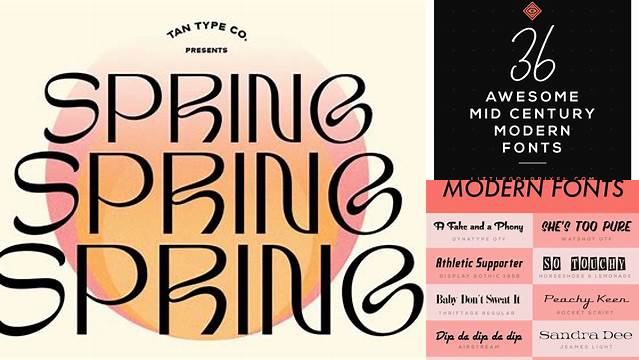
Free Mid-Century Script Fonts: Stylish Retro Options
Are you guys on the hunt for a font that screams retro charm and timeless elegance? Look no further! Mid-century script fonts are your perfect go-to, offering a touch of vintage flair that can elevate any design project. In this article, we're diving deep into the world of these stylish fonts, exploring what makes them so special, where you can find them for free, and how to use them effectively in your creative endeavors. So, buckle up and let's get started!
What Makes Mid-Century Script Fonts So Special?
Mid-century script fonts possess a unique aesthetic that harks back to the 1950s and 1960s, a time known for its optimism, innovation, and distinctive design styles. These fonts often feature flowing, cursive letterforms with a handcrafted feel, reminiscent of vintage advertisements, signage, and branding materials. The beauty of these fonts lies in their ability to evoke nostalgia while maintaining a modern appeal, making them incredibly versatile for a wide range of applications. Think about the iconic logos and branding from this era – the swooping lines and elegant curves of script fonts played a significant role in their visual identity. This era celebrated a blend of futuristic aspirations and a handcrafted touch, which is perfectly captured in these scripts. The letterforms often have a rhythmic quality, creating a sense of movement and energy that draws the eye. Additionally, many mid-century script fonts incorporate subtle imperfections and variations in stroke weight, adding to their authenticity and charm. This human element is what sets them apart from more sterile, digital-feeling typefaces. They bring a warmth and personality that can instantly transform a design from ordinary to extraordinary. Whether you’re designing a logo, creating a poster, or working on a website, the right mid-century script font can add that crucial touch of vintage sophistication. They are perfect for projects that aim to evoke a sense of nostalgia, luxury, or handcrafted quality. The flowing, elegant lines create a visual rhythm that is both pleasing and engaging, making them a popular choice for designers seeking to add a touch of timeless style to their work. The distinctiveness of these fonts also ensures that your designs will stand out, capturing attention and leaving a lasting impression. By understanding the history and characteristics of mid-century script fonts, you can appreciate their unique appeal and use them effectively to create visually stunning designs.
How to Use Mid-Century Script Fonts Effectively
Now that you've snagged some awesome mid-century script fonts, let's talk about how to use them like a pro! These fonts are undeniably stylish, but they need to be wielded with care to truly shine. One of the most important things to consider is the context of your project. Mid-century scripts work wonders for vintage-themed designs, branding, posters, invitations, and even websites aiming for a retro feel. Think about the overall message you want to convey. These fonts often evoke feelings of nostalgia, elegance, and handcrafted quality, so they're perfect for projects that align with these themes. However, they might not be the best choice for something ultra-modern or minimalist. When it comes to typography, less is often more. Mid-century script fonts are typically best used sparingly, as headlines, logos, or short phrases. Overusing them can make your design look cluttered and overwhelming. Pair them with a clean, simple sans-serif or serif font for body text to create a balanced and visually appealing layout. This contrast can highlight the script font and make it stand out even more. For example, a bold script font used for a headline paired with a classic sans-serif like Helvetica or Arial for the body text can create a striking and legible design. Consider the size and spacing of your script font. Because of their flowing and decorative nature, script fonts can sometimes be difficult to read at small sizes. Ensure that your chosen font is legible, especially in smaller applications like business cards or website navigation. Adjust the letter spacing (tracking) and line height (leading) to improve readability if needed. Experiment with different weights and styles within the font family. Many mid-century script fonts come in various weights, from light and delicate to bold and impactful. Choosing the right weight can significantly affect the overall look and feel of your design. A lighter weight might be suitable for elegant invitations, while a bolder weight could work well for a retro-inspired poster. Pay attention to the color palette. Mid-century designs often feature warm, muted colors like oranges, browns, and yellows, as well as contrasting colors like teal and mustard. Using a color palette that complements your font choice can enhance the vintage aesthetic. Consider adding subtle textures and graphic elements that evoke the mid-century era, such as geometric patterns, starbursts, or hand-drawn illustrations. These elements can help to reinforce the retro theme and create a cohesive design. By carefully considering these factors, you can effectively incorporate mid-century script fonts into your designs and create visually stunning pieces that capture the essence of this iconic era.
Examples of Stunning Mid-Century Script Fonts
Okay, let's get down to specifics and check out some amazing mid-century script fonts that you can use to spice up your projects. Knowing a few standout examples can really get your creative juices flowing and help you envision how these fonts might work in your own designs. First up, we have Brush Script MT, a classic and widely recognized font that perfectly embodies the mid-century aesthetic. Its bold, flowing strokes and slightly irregular letterforms give it a hand-painted feel, making it ideal for signage, posters, and headlines. This font exudes a sense of energy and informality, perfect for designs that need a touch of retro flair. Another fantastic option is Lobster, a bold and condensed script font with a vintage vibe. Lobster's tightly spaced letters and dramatic curves make it a standout choice for logos, packaging, and display typography. It’s particularly effective when used in shorter phrases or single words, as its distinctive style can make longer passages challenging to read. For a more elegant and refined look, consider Pacifico. This smooth, flowing script font has a relaxed and friendly feel, reminiscent of vintage surf posters and California beach culture. Pacifico is incredibly versatile and works well for a variety of applications, from websites and social media graphics to invitations and branding materials. If you’re looking for something with a bit more character and whimsy, Permanent Marker is an excellent choice. While technically a sans-serif, its marker-style letterforms evoke the hand-lettered look of mid-century signage and advertising. This font is perfect for adding a personal touch to your designs, making it ideal for posters, flyers, and informal communications. Snell Roundhand is another elegant script font that deserves a mention. Its graceful curves and delicate strokes make it a popular choice for wedding invitations, certificates, and other formal applications. However, it can also be used effectively in more casual designs when paired with the right elements. When exploring mid-century script fonts, it’s worth looking beyond the most popular options and discovering some hidden gems. Many talented designers create unique and beautiful script fonts that can add a distinctive touch to your work. Websites like DaFont and Creative Market are great places to find these lesser-known fonts. Remember, the key to using these fonts effectively is to choose one that complements the overall style and message of your design. Experiment with different options and see which ones resonate with you. By having a few go-to mid-century script fonts in your toolkit, you’ll be well-equipped to create stunning and timeless designs.
Tips for Pairing Mid-Century Script Fonts with Other Typefaces
Pairing mid-century script fonts with other typefaces can be a bit like mixing the perfect cocktail – you want the flavors to complement each other, not clash! To create a harmonious and visually appealing design, it’s essential to understand the principles of typography and how different fonts interact. One of the most effective strategies is to pair a script font with a clean, simple sans-serif typeface. The contrast between the flowing, decorative script and the clean lines of the sans-serif creates a balanced and modern look. Think of it as the script font being the star of the show, while the sans-serif provides the supporting role. This approach works well for a variety of applications, from websites and logos to posters and brochures. For example, pairing a bold script font like Lobster with a classic sans-serif like Helvetica or Open Sans can create a striking and legible design. The script font will draw attention to headlines and key phrases, while the sans-serif ensures that the body text remains easy to read. Another option is to pair your mid-century script font with a serif typeface. Serifs, with their small decorative strokes at the ends of letters, tend to have a more traditional and formal feel. When paired with a script font, they can create a sophisticated and elegant look. However, it’s crucial to choose a serif that doesn’t compete with the script font for attention. Opt for a serif that has a relatively simple and clean design, such as Garamond or Times New Roman. This combination can be particularly effective for wedding invitations, branding materials, and other projects that require a touch of classic elegance. When selecting fonts to pair with your mid-century script font, consider the overall mood and message of your design. If you’re aiming for a retro and playful feel, you might choose a bolder and more whimsical sans-serif. If you want a more refined and sophisticated look, a classic serif or a clean, geometric sans-serif might be a better choice. Pay attention to the weight and size of the fonts you’re pairing. Avoid using two fonts that are too similar in weight or style, as this can create a visually muddy effect. Instead, aim for contrast. If you’re using a bold script font for your headline, pair it with a lighter-weight sans-serif for the body text. Similarly, consider the size of the fonts. Your headline font should be larger and more prominent than your body text font. Experiment with different combinations and see what works best for your project. Don’t be afraid to try unexpected pairings, but always prioritize legibility and visual harmony. By following these tips, you can effectively pair mid-century script fonts with other typefaces and create designs that are both stylish and easy to read.
Conclusion: Embrace the Timeless Appeal of Mid-Century Script Fonts
So, there you have it, guys! Mid-century script fonts are a fantastic way to inject some vintage charm and timeless elegance into your design projects. Whether you're crafting a logo, designing a poster, or revamping a website, these fonts can add that special something that makes your work stand out. We've explored what makes these fonts so unique, where you can find them for free, how to use them effectively, and even shared some tips on pairing them with other typefaces. The key takeaway here is that mid-century script fonts are incredibly versatile. They can evoke nostalgia, add a touch of sophistication, or simply make your designs more visually appealing. But like any design element, they need to be used thoughtfully. Think about the context of your project, the message you want to convey, and how the font fits into the overall aesthetic. Don't be afraid to experiment and try different combinations. The world of typography is vast and exciting, and there's always something new to discover. By embracing the timeless appeal of mid-century script fonts, you can create designs that not only look great but also tell a story. These fonts carry a rich history and cultural significance, and using them in your work can add depth and meaning. Whether you're a seasoned designer or just starting out, incorporating mid-century script fonts into your toolkit is a smart move. They're a valuable asset that can help you create visually stunning and memorable designs. So go ahead, explore the world of mid-century script fonts, and let your creativity flow! You might just surprise yourself with what you can create. Happy designing, and remember, a great font can make all the difference!